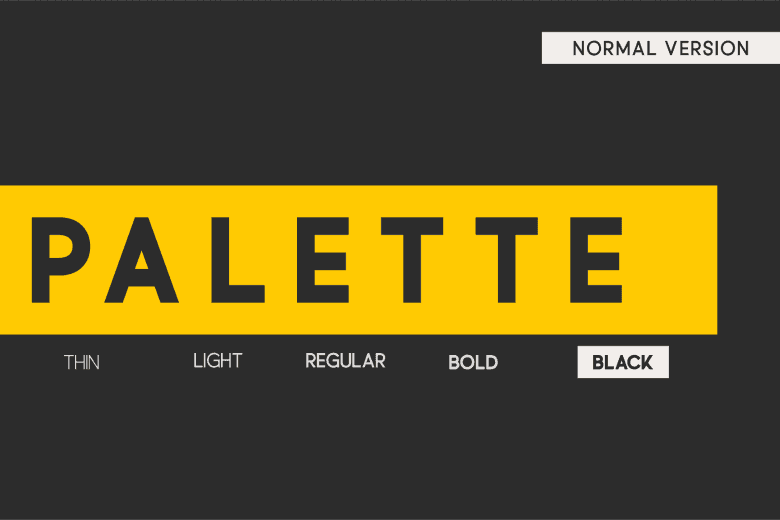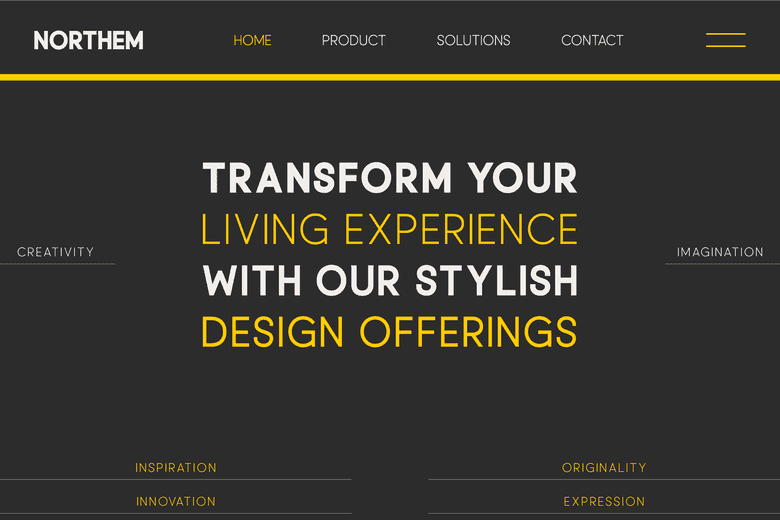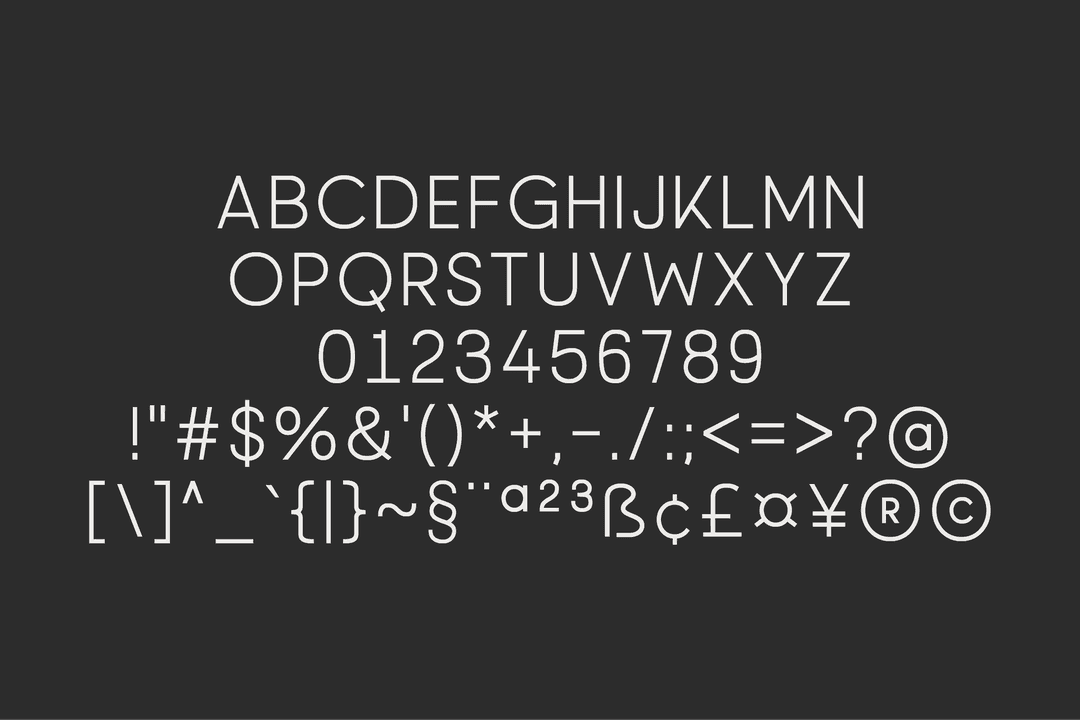
The Palette font family is our crowning glory! A symbol of minimalism and elegance, this sans serif family boasts five weights which easily blend modernity and elegance – perfect for advertisements, logos or film posters alike. Discover its perfect balance between elegance and simplicity that will allow your designs to emanate timeless beauty.